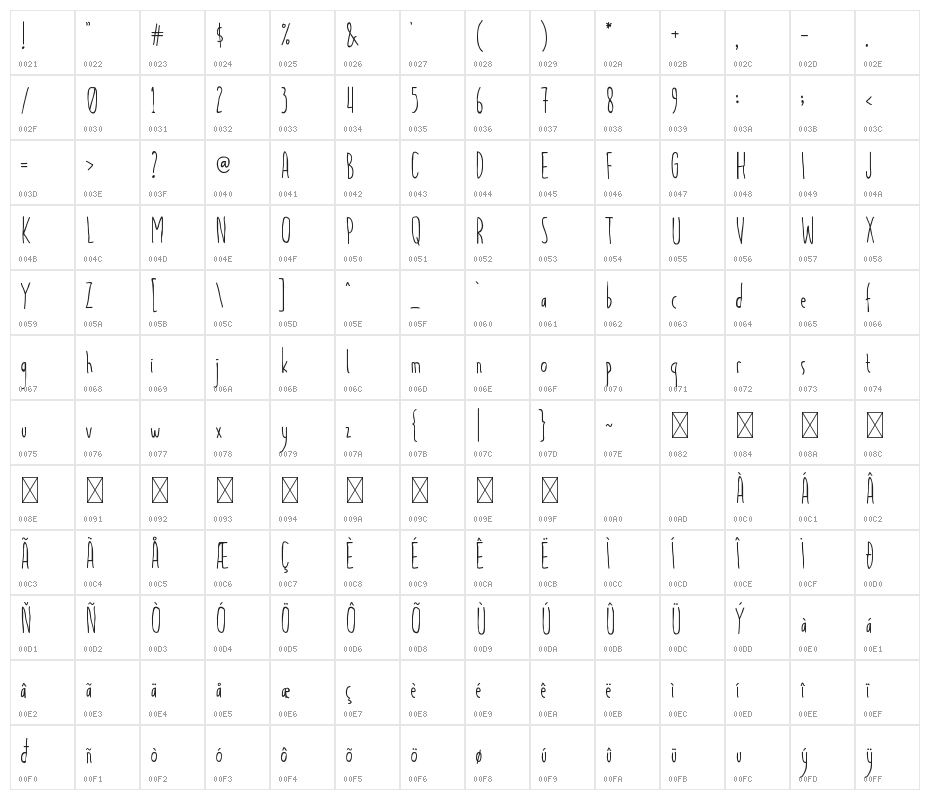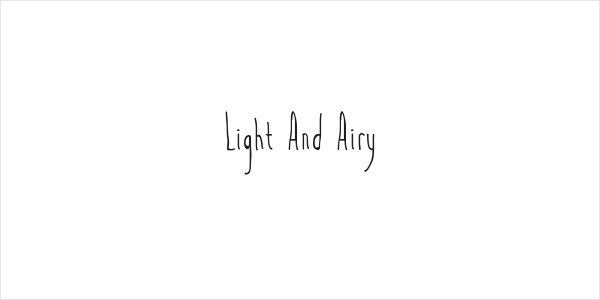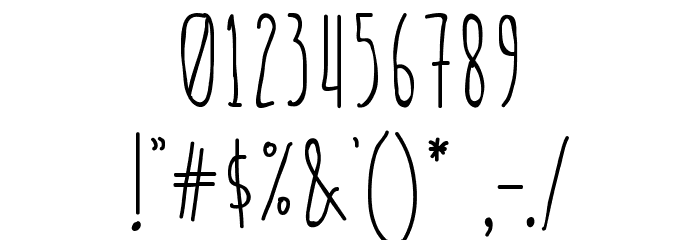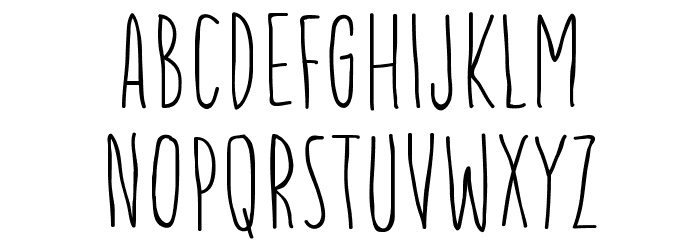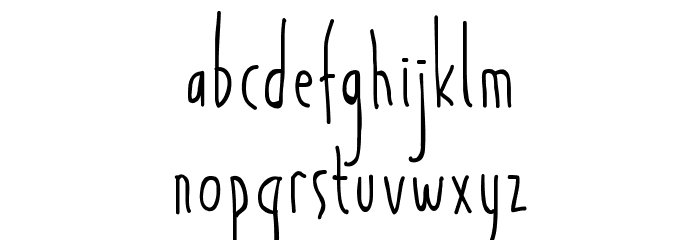
Light And Airy Font
Light And Airy Description
A whimsical, handwritten font with tall, narrow letters and a playful style.
| Use Case | Headlines, Casual text |
| Proposed Projects | Greeting cards, invitations, casual branding. |